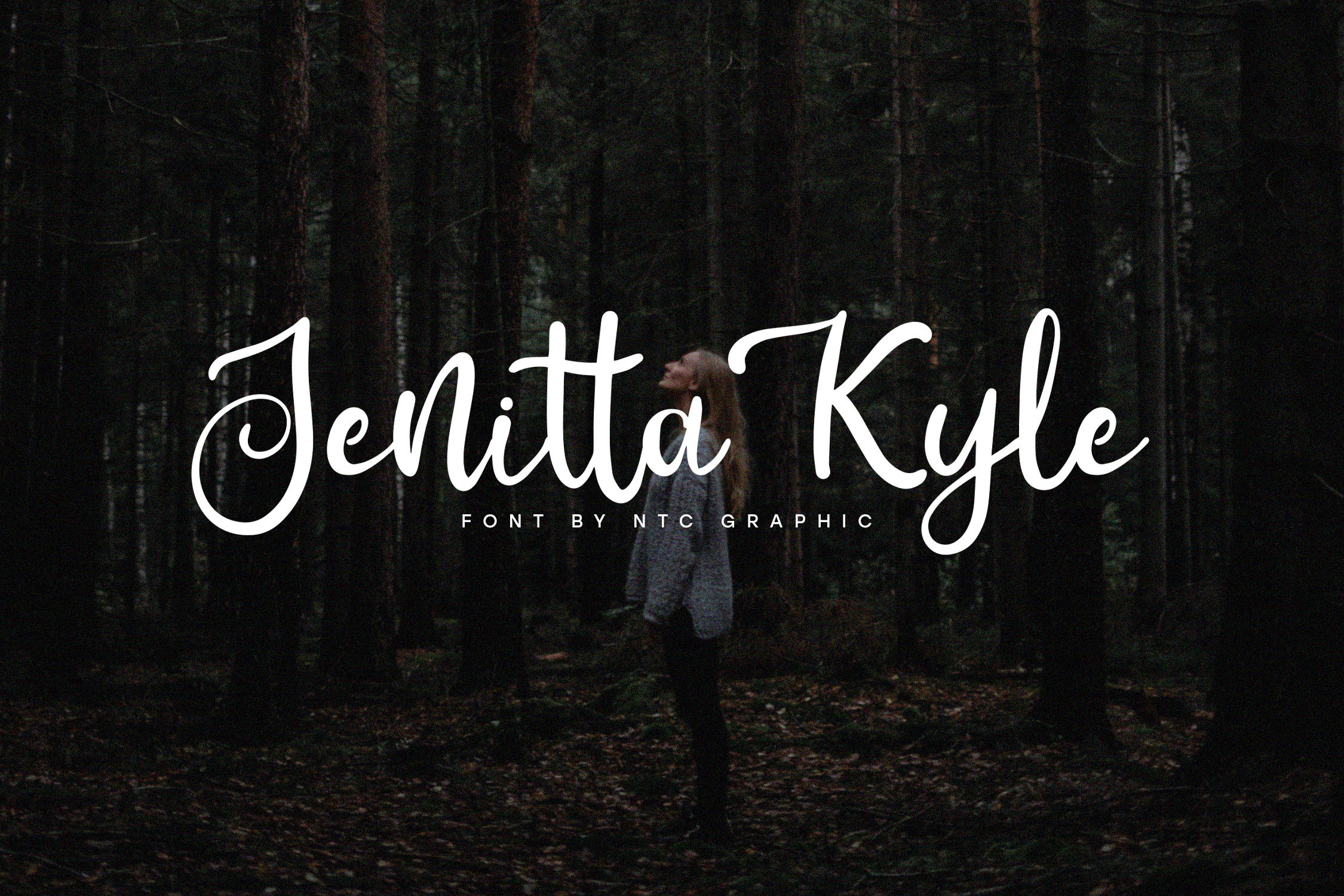
Jenitta Kyle Script Font
Jenitta Kyle is a beautiful script font with feminine style. Is a font style that is made with scratches and curvature shapes font characters are very beautiful. Can be applied to support the graphic appearance of the product to be more attractive and unique.